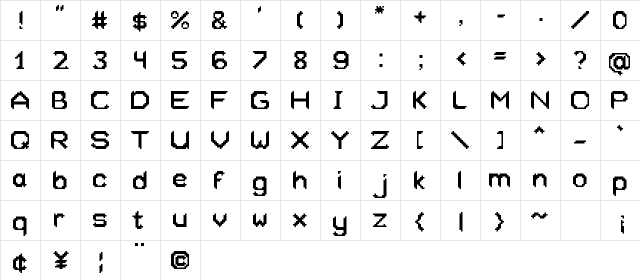
Xeliard Medium
Design Context for Xeliard Typeface
Xeliard is a composed and adaptable typeface that performs quietly and consistently across a wide range of design contexts.